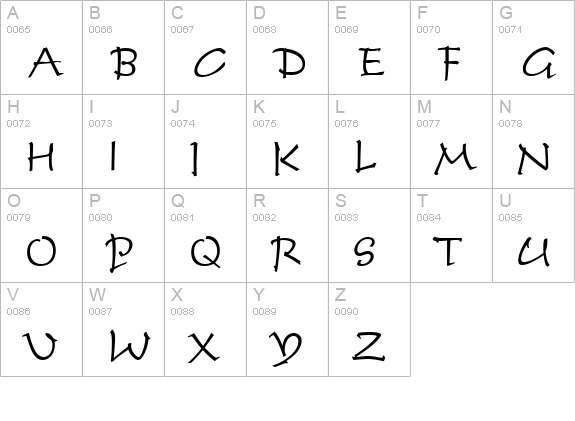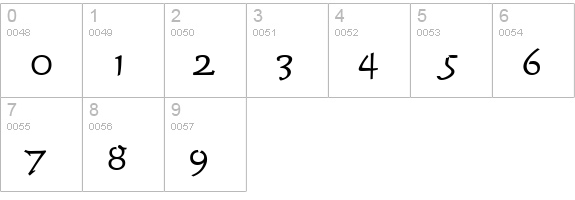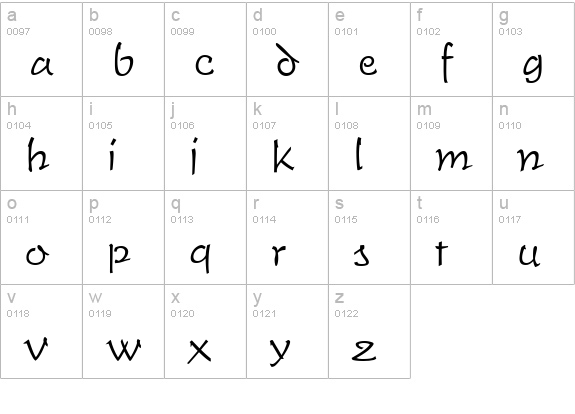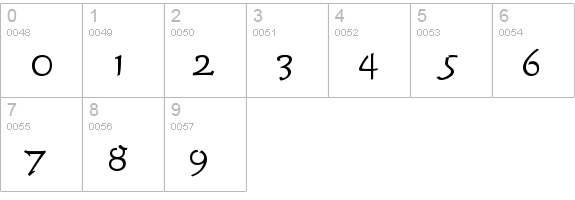
TimeScrDLig is a stunning and elegant font that is perfect for adding a touch of sophistication to your designs. Its sleek and modern style is sure to catch the eye and make a lasting impression. With its unique combination of clean lines and stylish curves, TimeScrDLig brings a sense of professionalism and class to any project. But what sets TimeScrDLig apart is that it is not only a beautiful font, but it is also free! That's right, this amazing font is freely available to download at FontsMarket.com. Now you can add a touch of elegance to your designs without breaking the bank. Whether you're creating a logo, designing a website, or working on a branding project, TimeScrDLig is the perfect choice. Its versatility allows it to be used in a variety of contexts, from corporate presentations to wedding invitations. The possibilities are endless with this stunning font. So why wait? Download TimeScrDLig for free at FontsMarket.com and start adding a touch of class to your designs today. Don't miss out on this incredible opportunity to elevate your projects with this exquisite font.